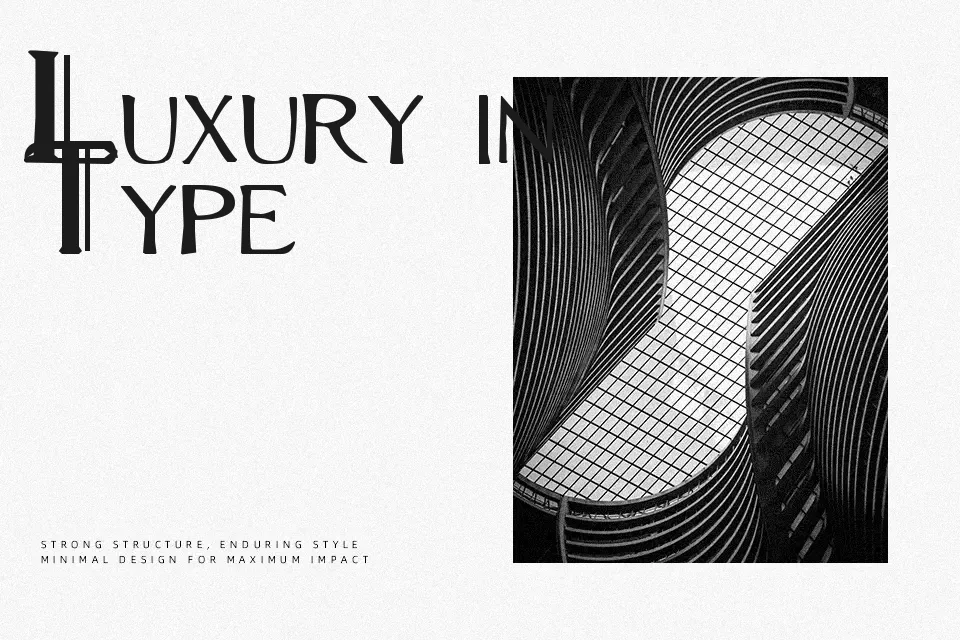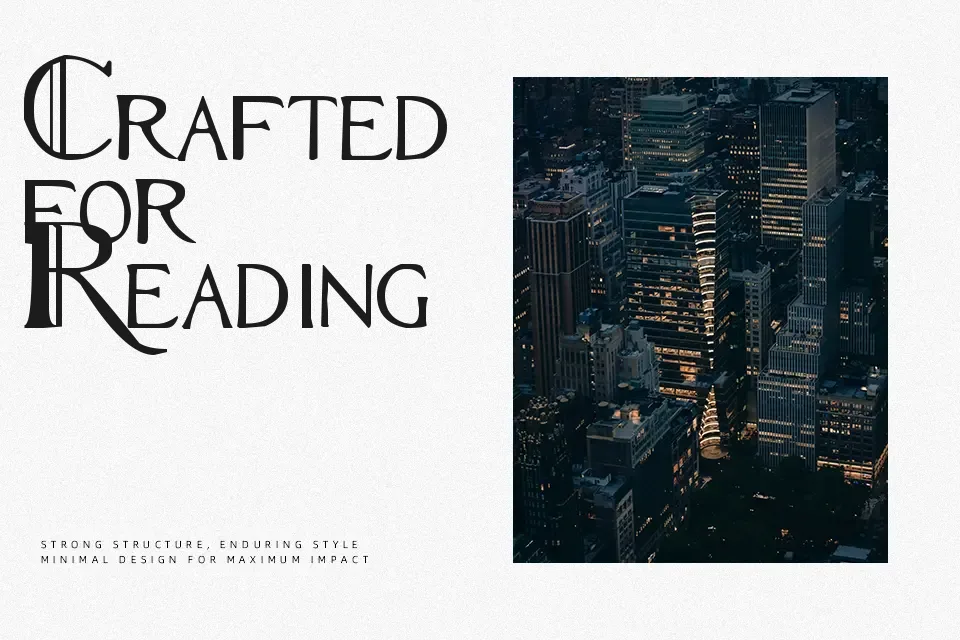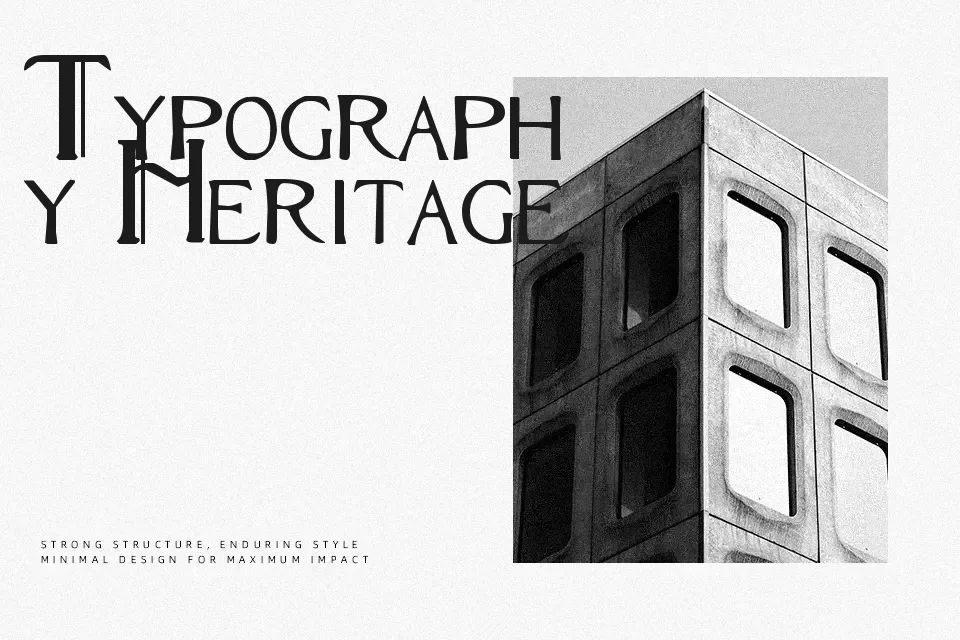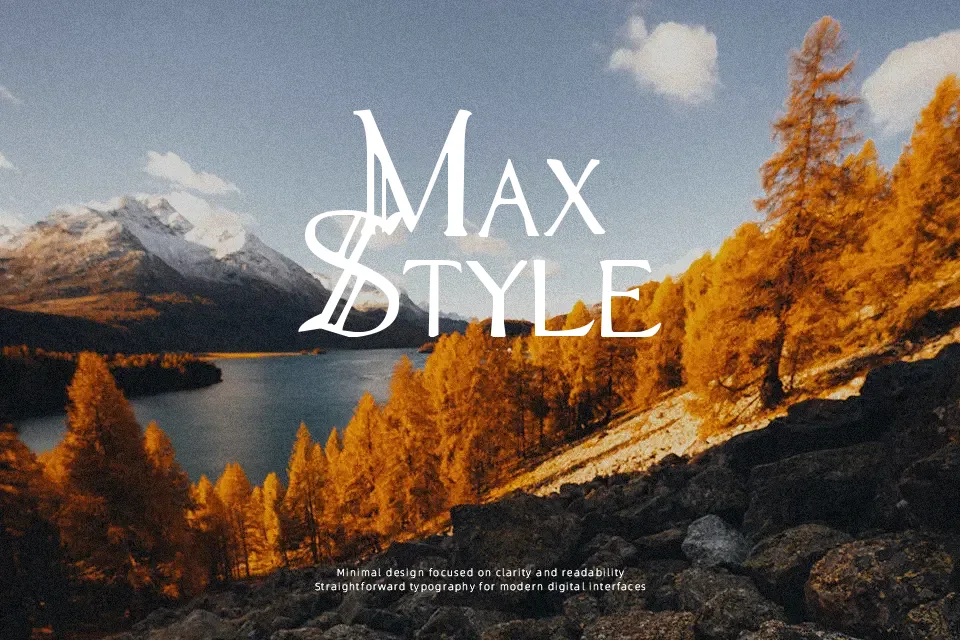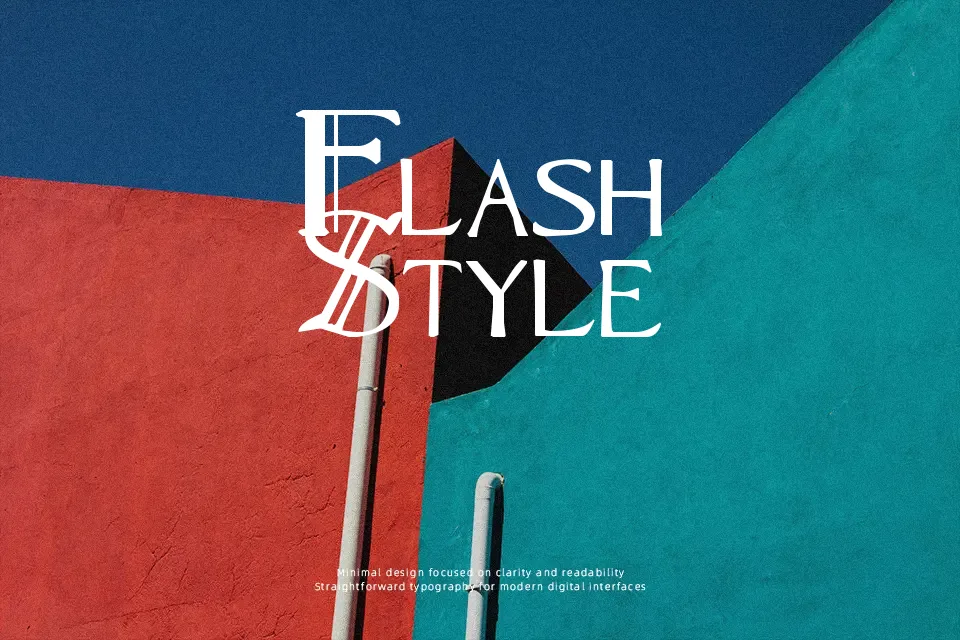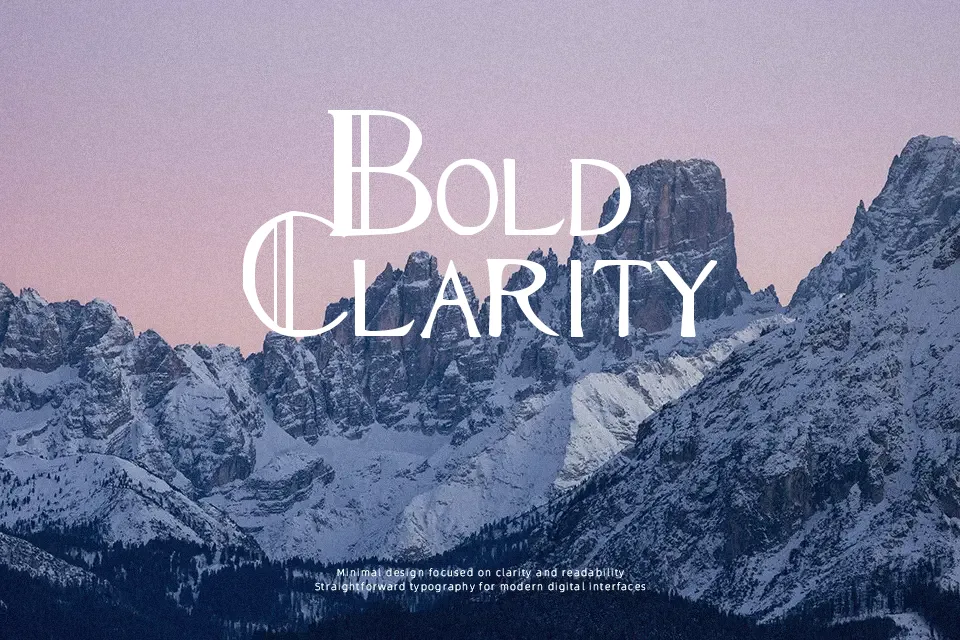
Renny Hybrid Font
Renny Hybrid Font presents a distinctive structural approach that balances retro aesthetics with decorative display elements. The letterforms display consistent stroke thickness, combined with moderately open spacing that establishes a comfortable visual rhythm across words. This typeface blends classic proportions with a robust, unadorned framework. The spacing helps maintain clarity in larger headlines, making the design highly effective for music festival posters, vintage product packaging, and creative branding applications. However, the unique structural details become less effective at smaller sizes, rendering it less suitable for long paragraph text or dense editorial layouts. The solid character shapes carry strong visual impact, offering a memorable and confident presence when applied to prominent, attention-grabbing design scenarios.
Best For: vintage product packaging, music festival posters, creative branding logos, website hero headlines
Not Ideal For: long paragraph text, small interface labels, dense editorial layouts, spreadsheet data
Perfect for branding, headline, and music, with a bold and decorative style.